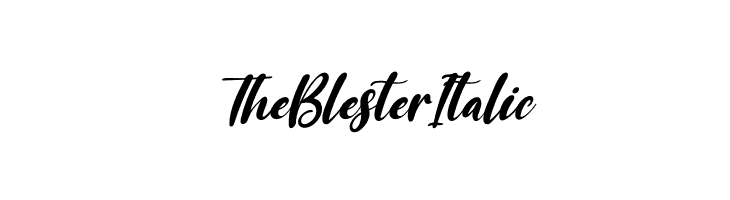
A bold, playful script font with dynamic cursive letterforms.
A bold and flowing script font with elegant, interconnected letterforms.
A whimsical and elegant script font with flowing, cursive letterforms.
A modern, cursive font with a handwritten style.